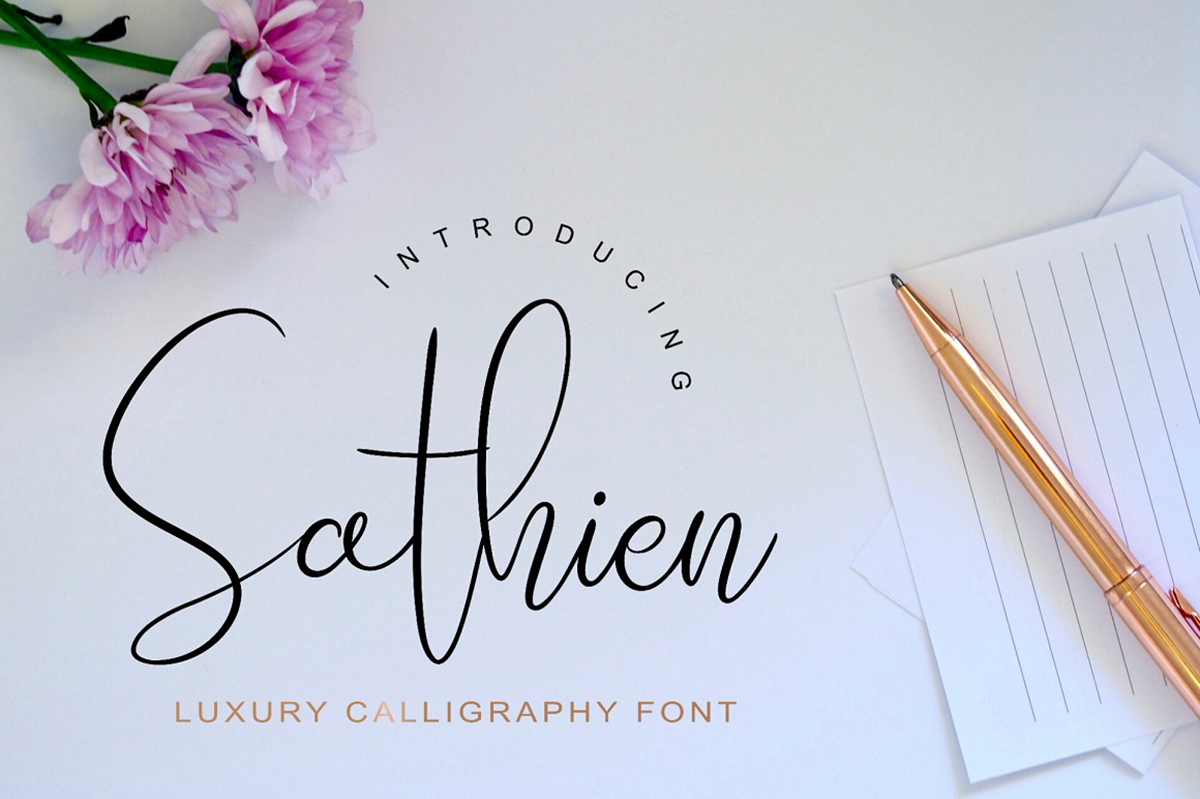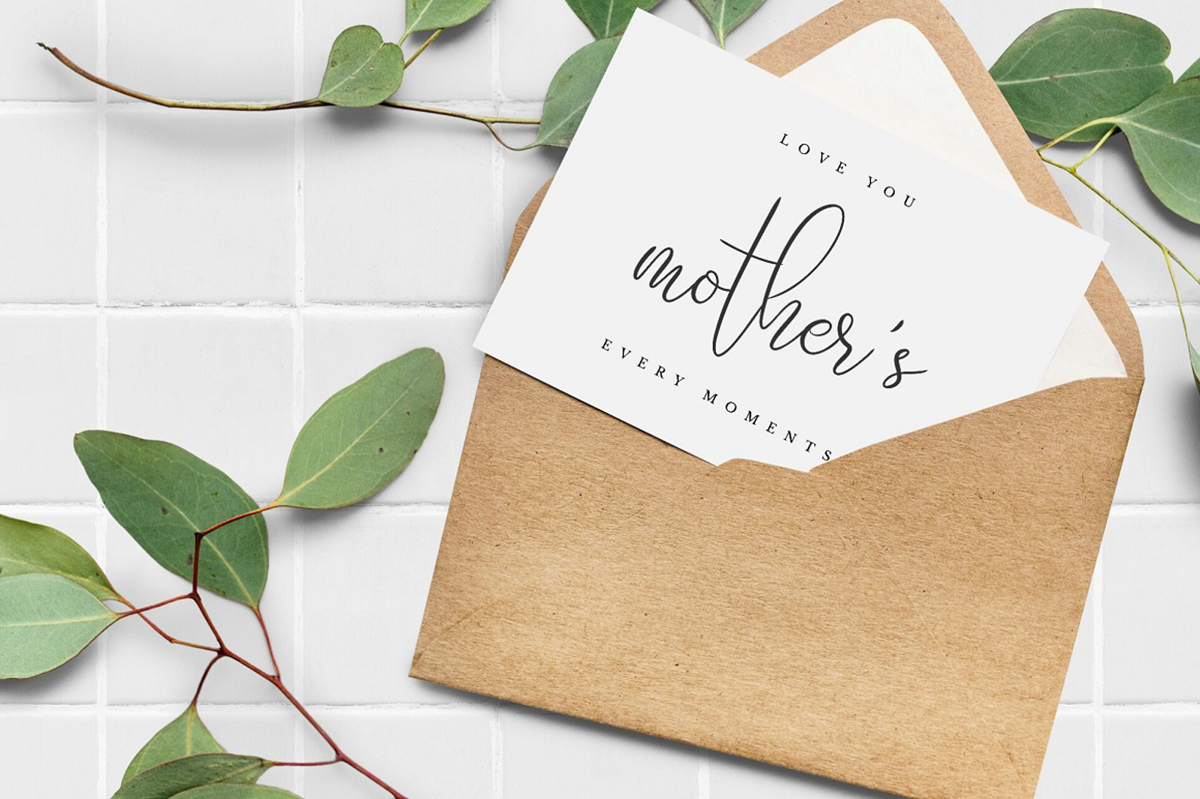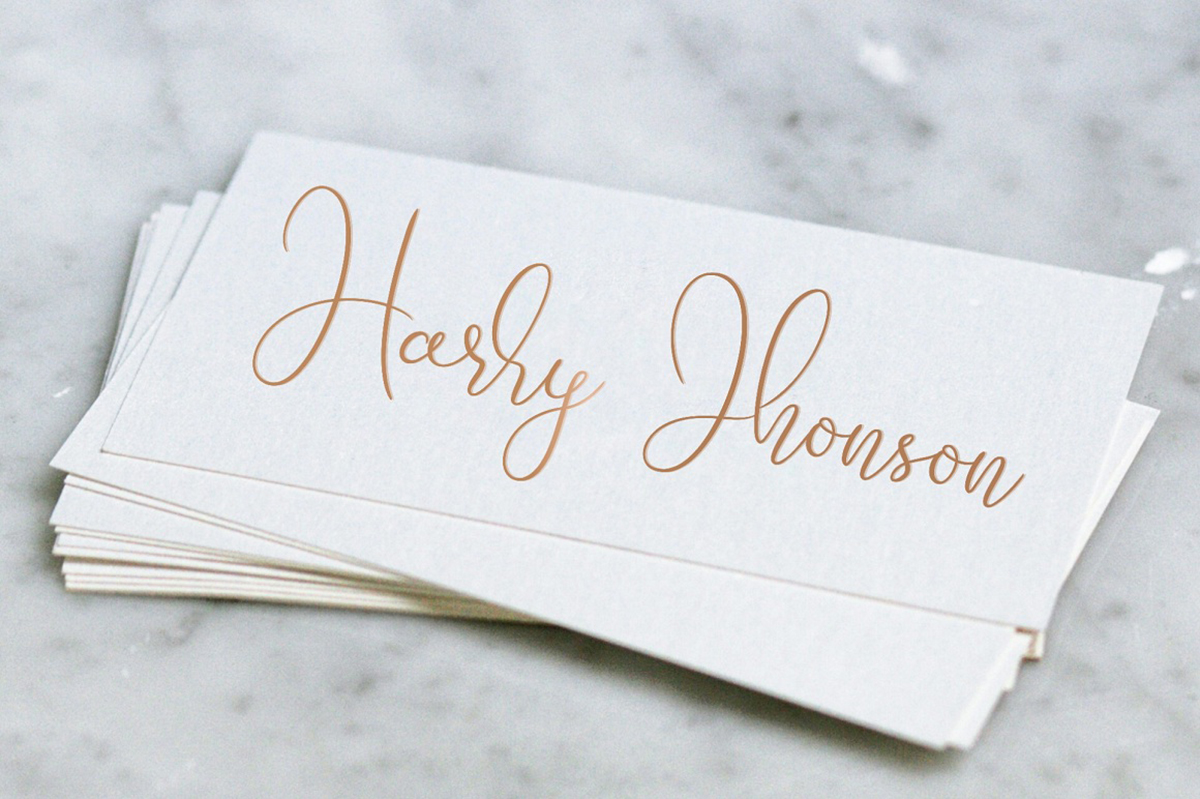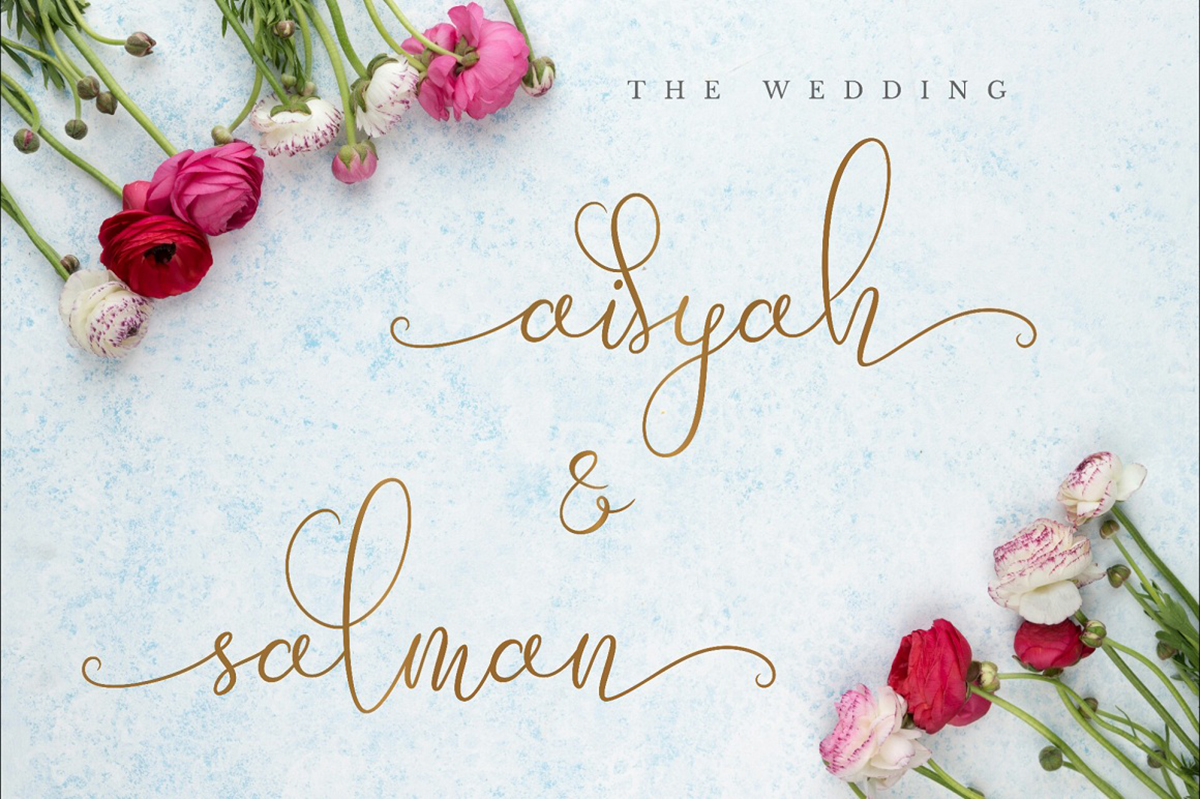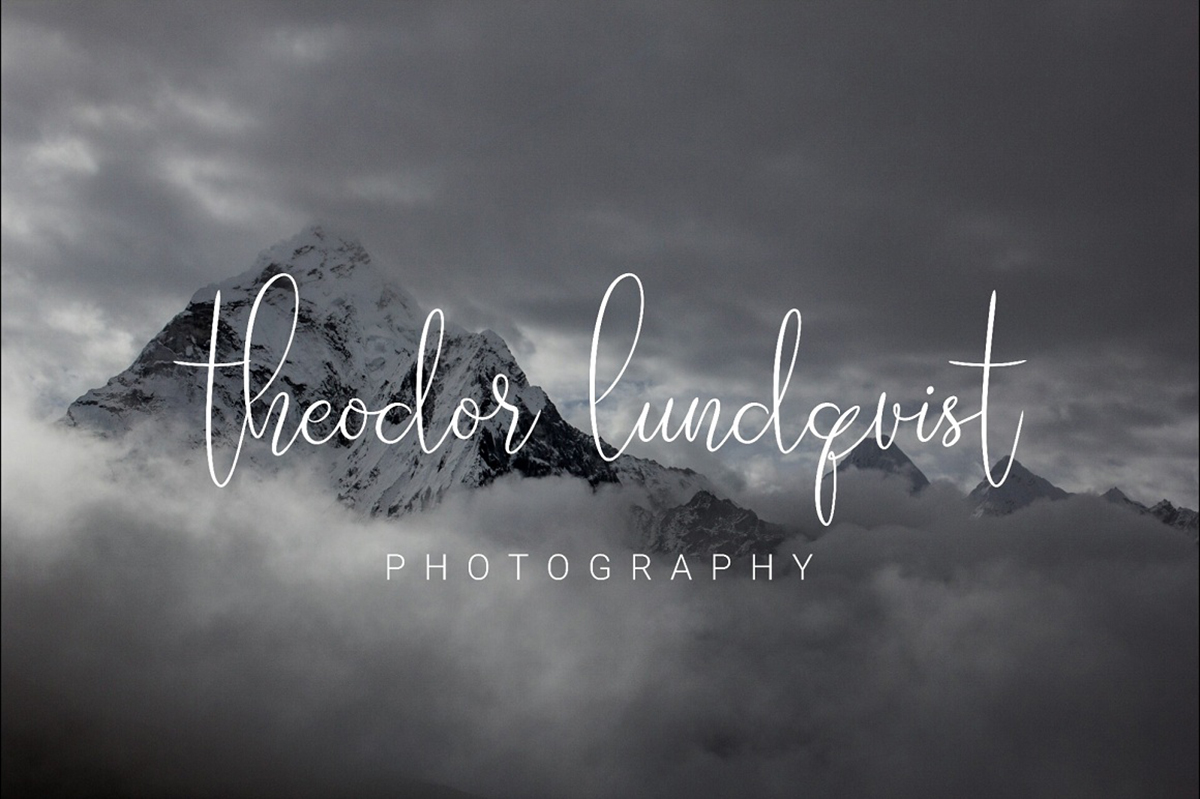
Sathien Free Font
Sathien Free Font is luxurious interesting calligraphy with thin lines. This font has an elegant style and is very suitable for creating various projects that require a script font. You can use this font to create memorable posters, wedding invitations, greeting cards, branding, flyers, t-shirt and pillow prints, and more. Improve the quality and increase the popularity of your design projects using this font. If you like it don’t forget to check out the full version.